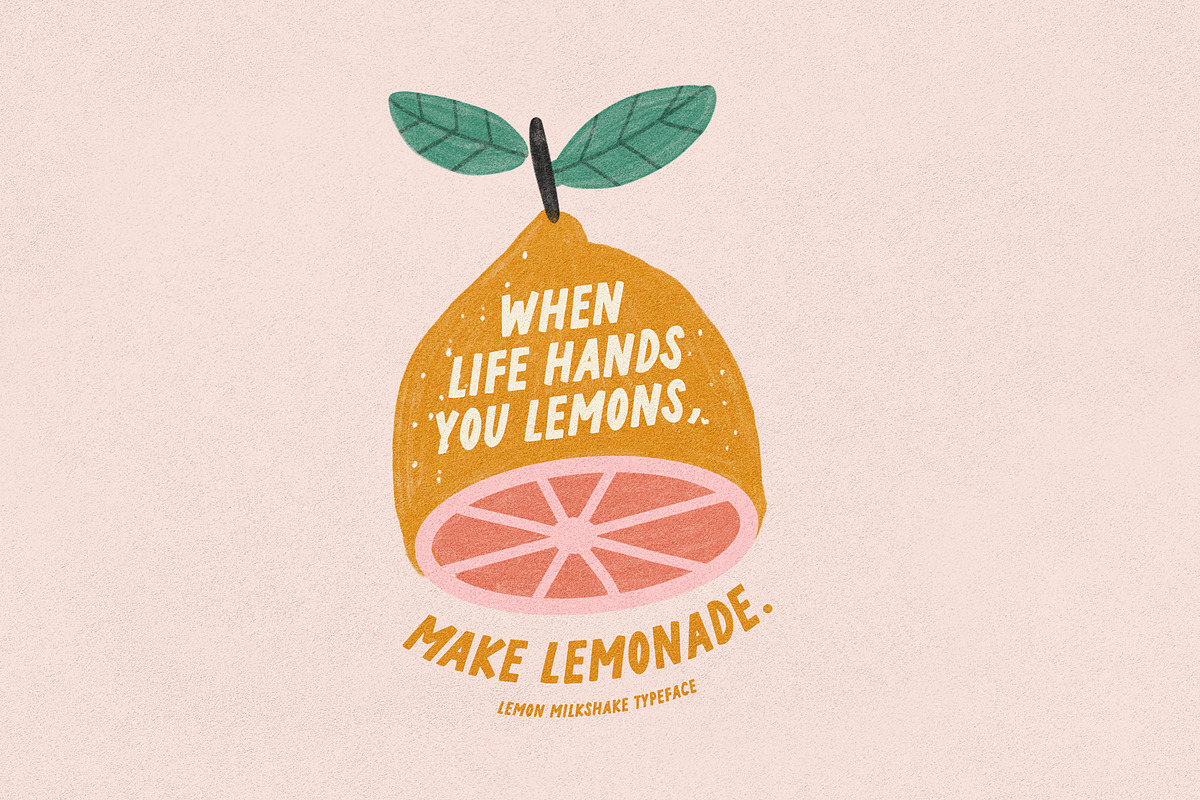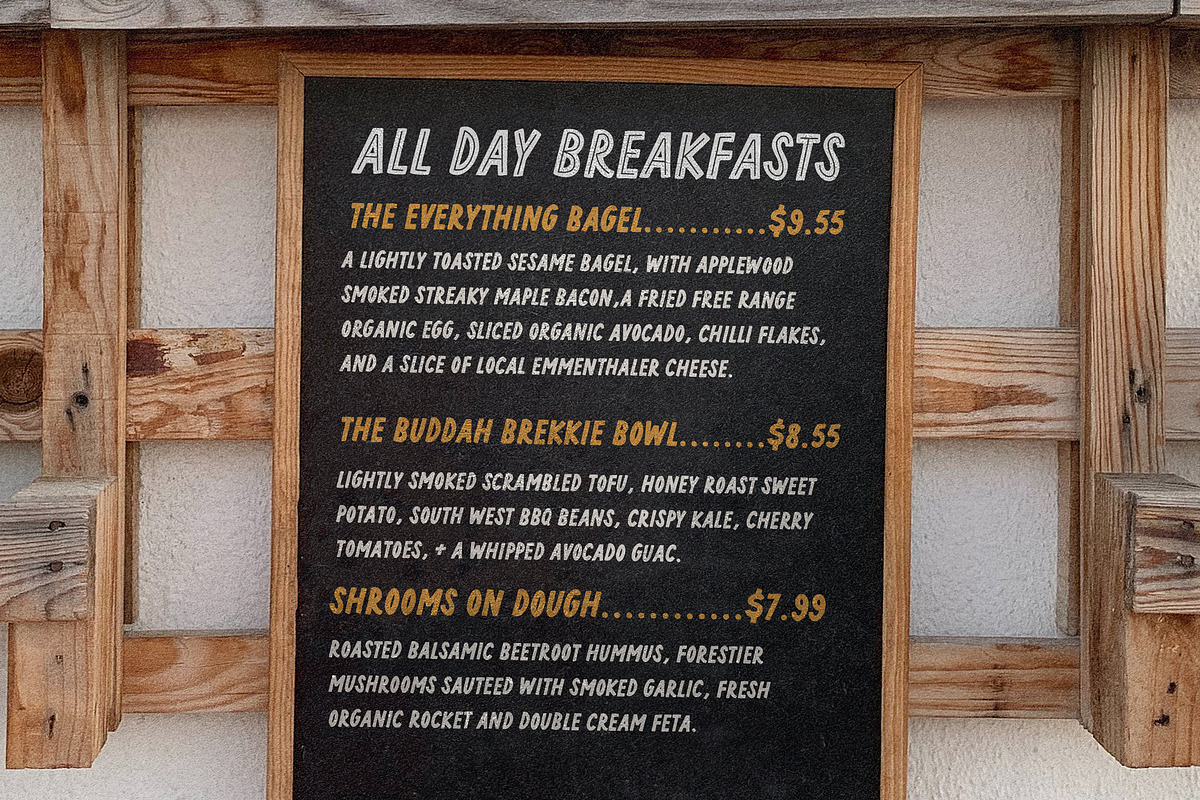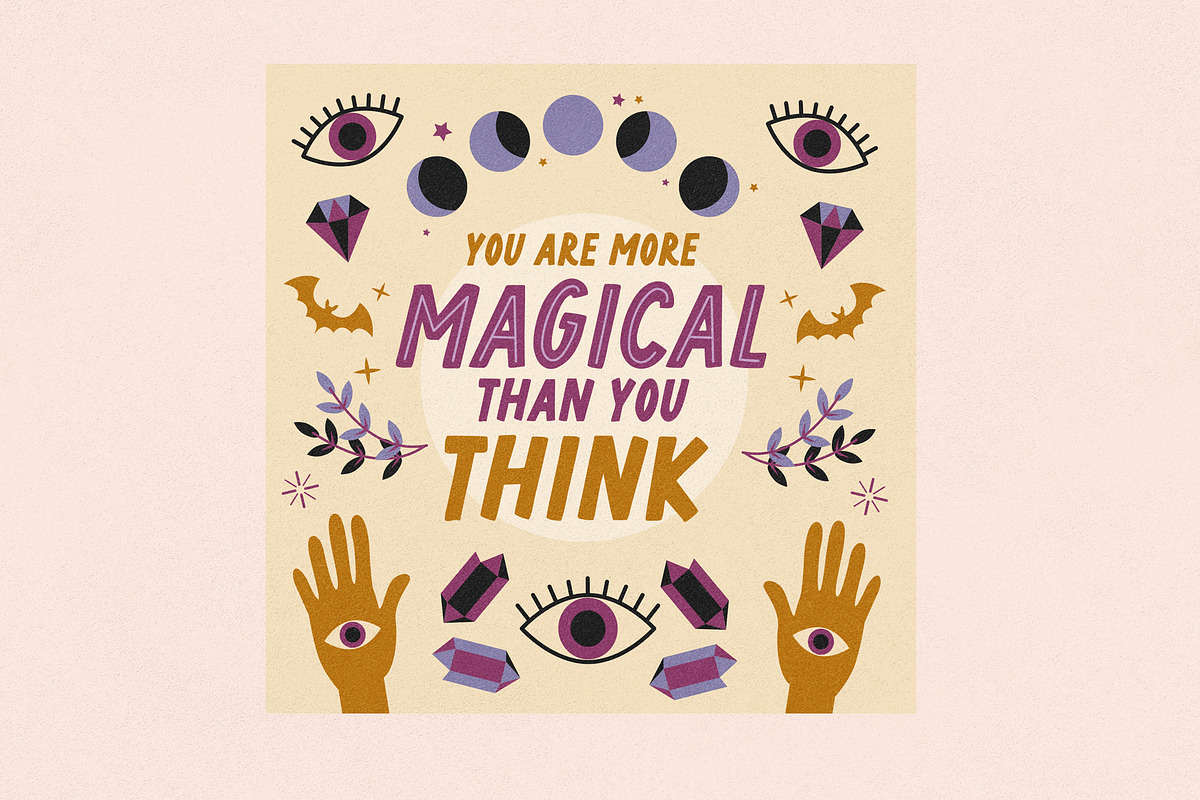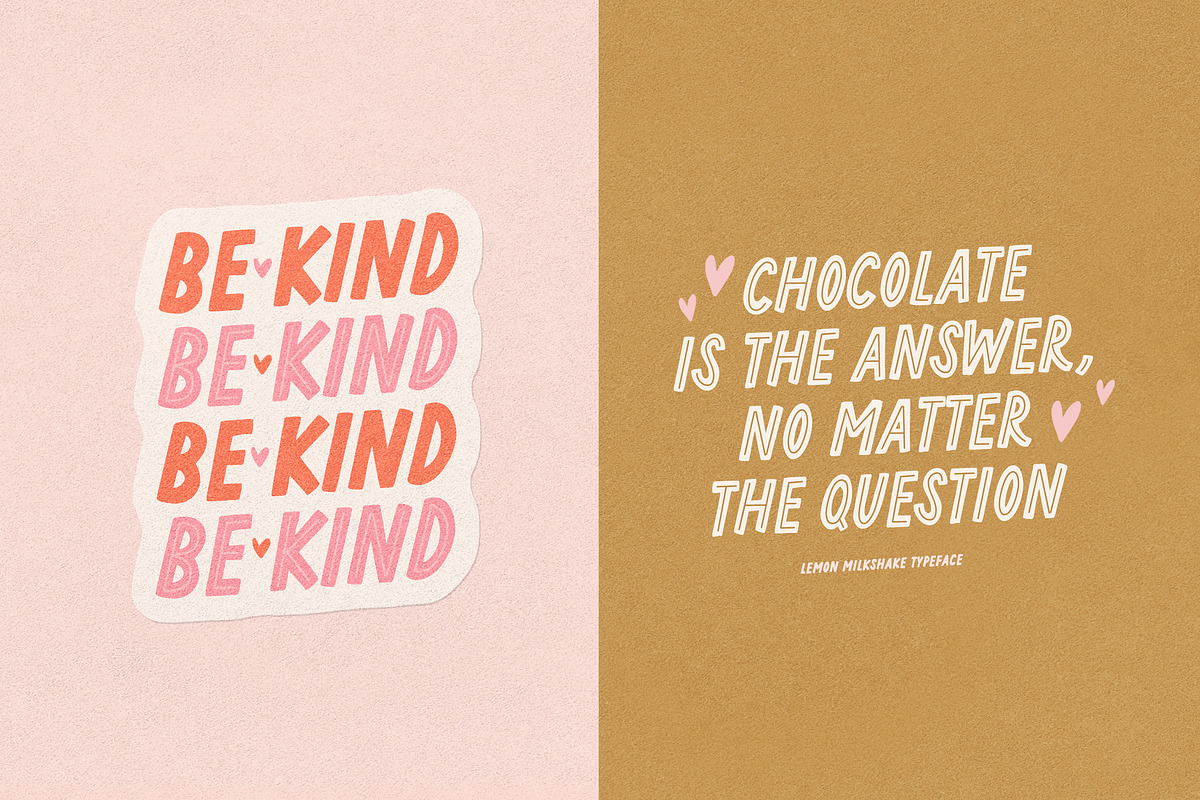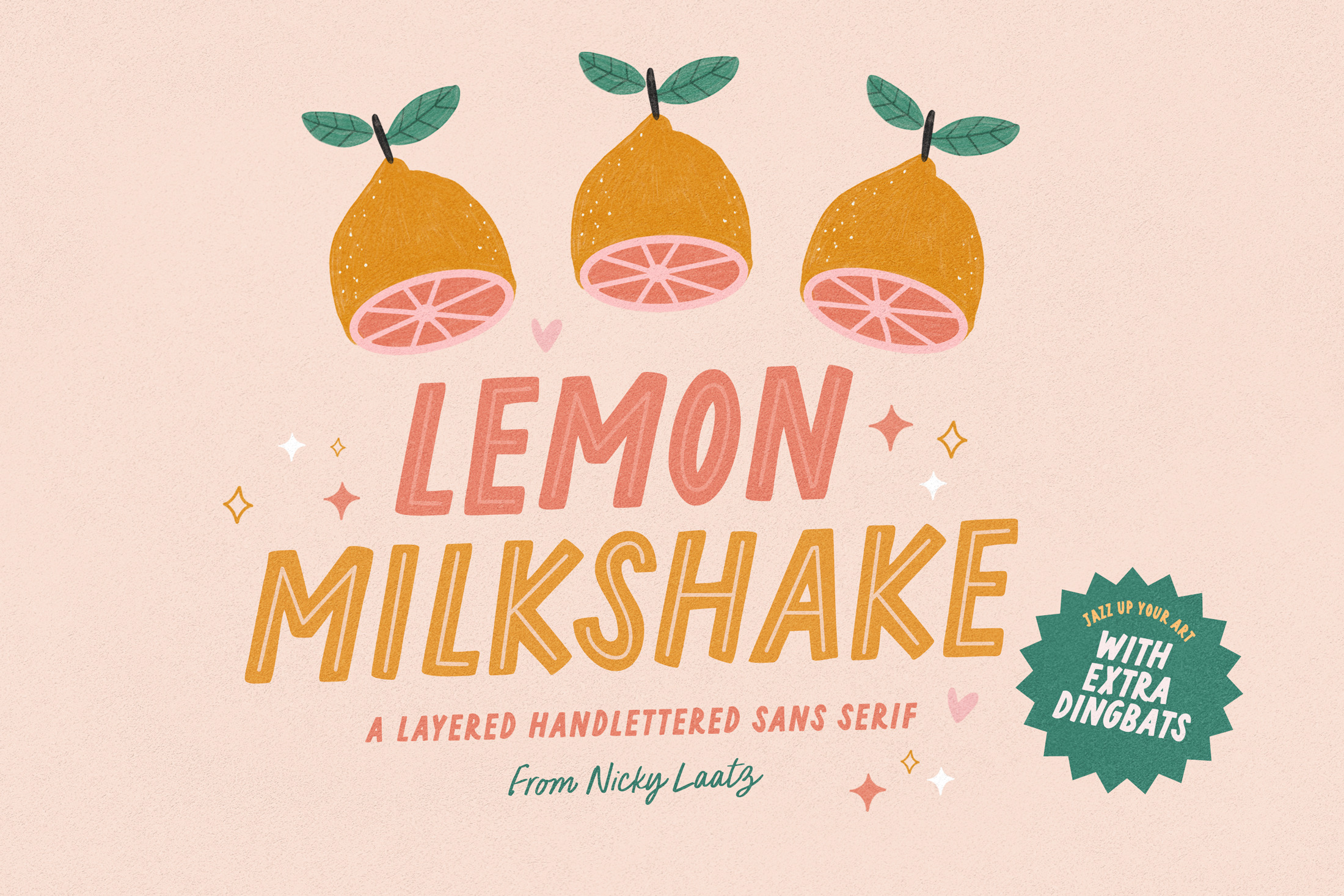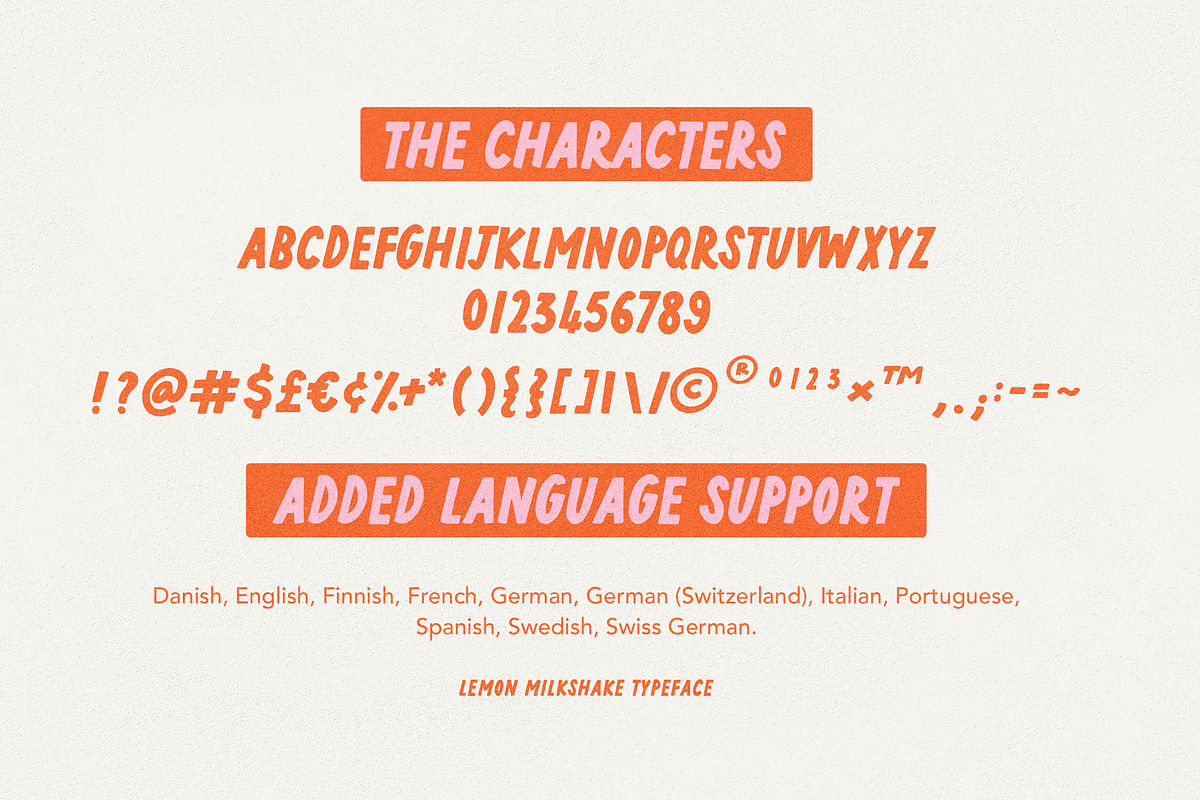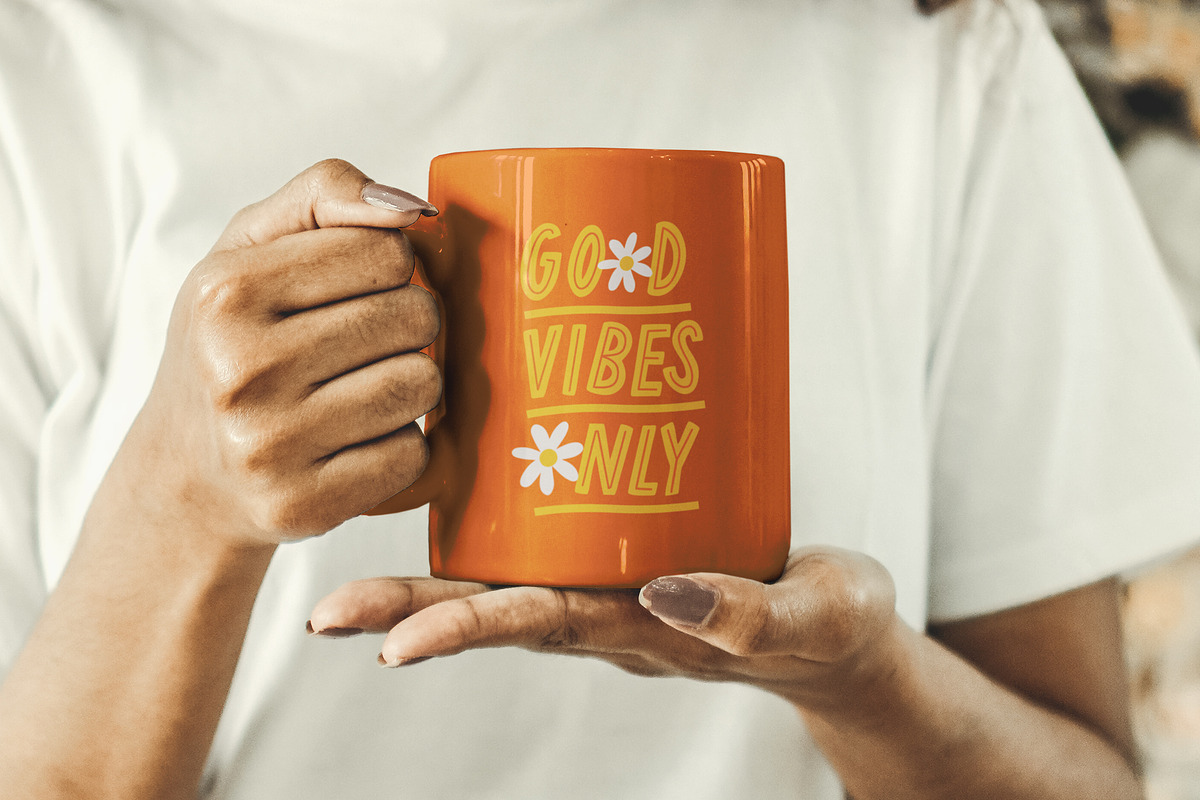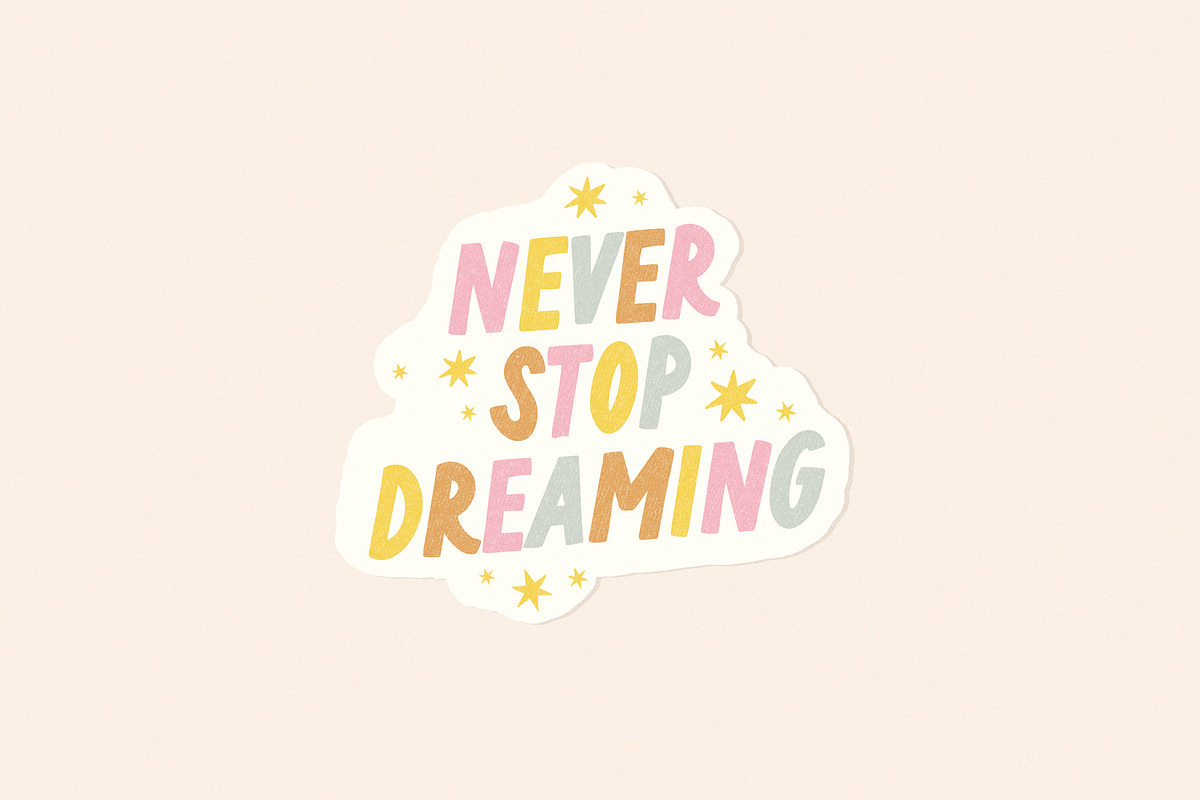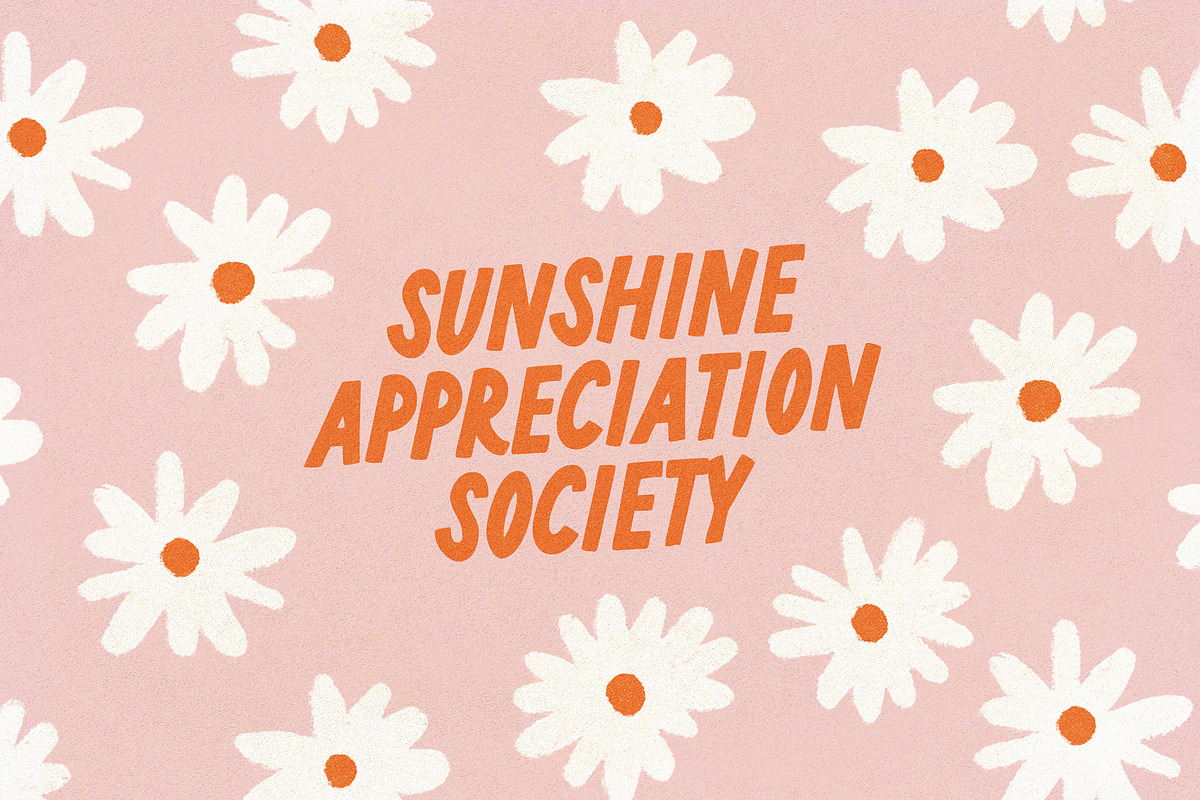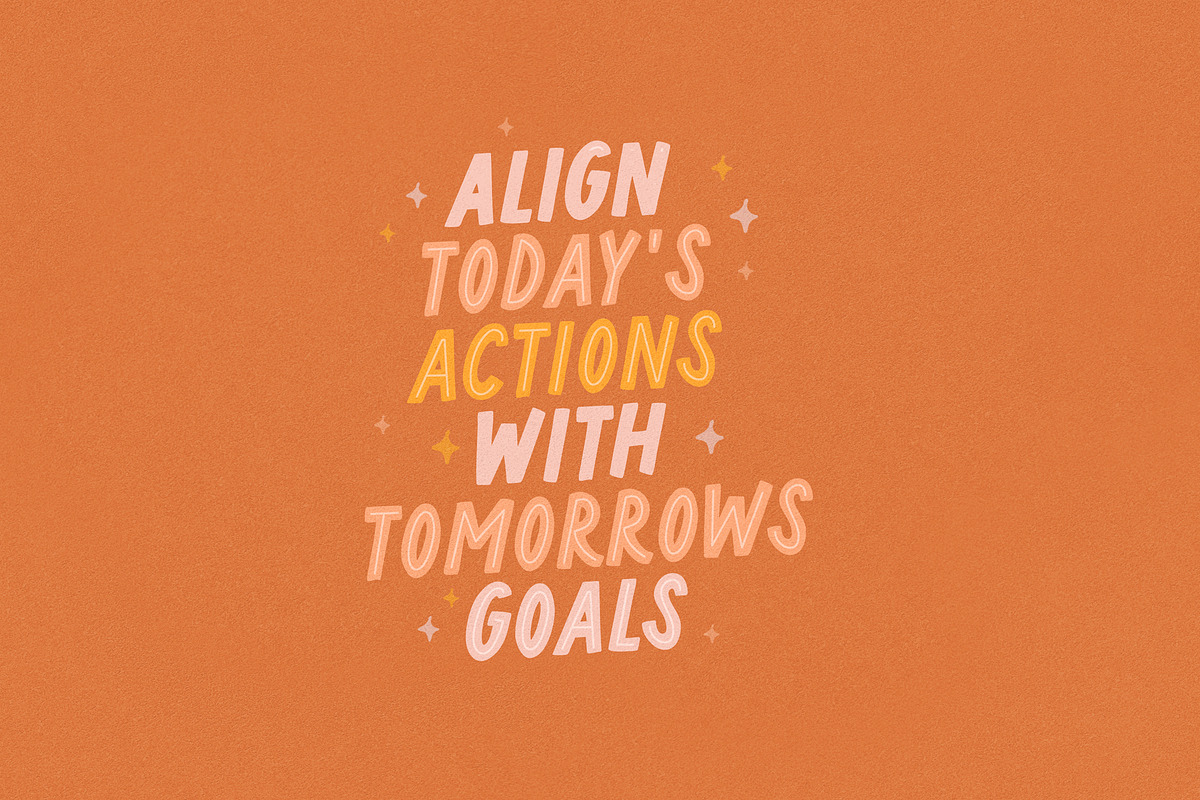
Lemon Milkshake Typeface and Dings
Say hello to Lemon Milkshake! A sweet little layered goody-two-shoes handwritten all-caps typeface :)
Available in three variants - Regular, Upright and Slanted - pick the one that suits your project best. Each variant has it's equivalent inline font you can use over the top of it. The inline font can even be used stand alone as a complimentary font.
Lemon Milkshake comes with a sweet little extra dingbat font! - jazz up your designs with hearts sparkles and pops in a jiffy :) As a bonus - the dings are also included as individual pngs, Photoshop brushes and Procreate brushes.
Great at small or large sizing - Lemon milkshake is great for small body type or larger display headlines.
With built-in OpenType kerning - letters are spaced nicely - no odd-looking pairs.